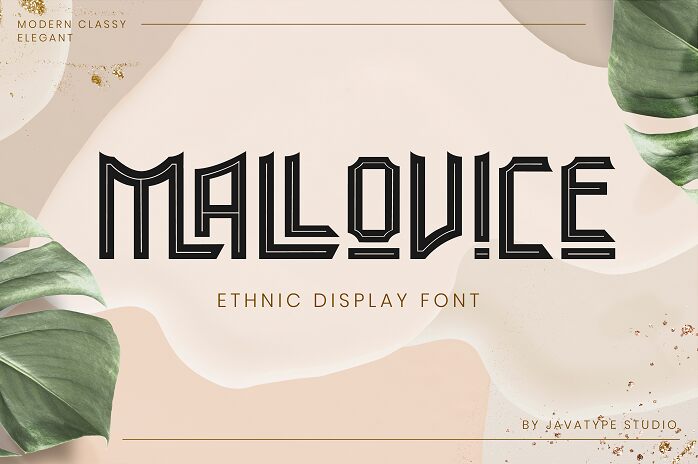
Mallovice Regular
Mallovice, designed by Javatype Studio, is an exquisite ethnic display font that captures the essence of cultural diversity. Its semi-condensed width adds a touch of elegance to any project, making it suitable for a wide range of creative endeavors.
With its intricate details and bold strokes, Mallovice is perfect for designing captivating logos, eye-catching posters, and culturally inspired packaging.
Embrace the enchanting beauty of this font and infuse your projects with a touch of global charm that will captivate audiences in an instant.